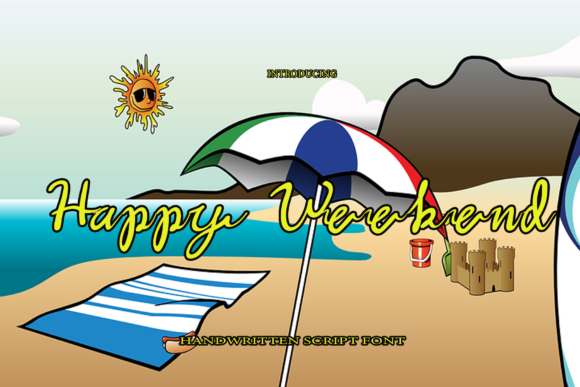
Introducing Happy Weekend Font: The Perfect Addition to Your Design Arsenal
Are you tired of using the same old fonts in your designs? Look no further! Happy Weekend Font is a game-changer for designers and crafters alike. This relaxed, whimsical, and chic script font is sure to add a touch of personality to any project. In this article, we’ll dive into the features and benefits of Happy Weekend Font, and explore its endless possibilities.
What is Happy Weekend Font?
Happy Weekend Font is a beautiful script font that features characters that dance along the baseline. Its unique and playful design makes it perfect for a wide range of applications, from logos and wedding invitations to headings, t-shirts, and more. The font’s relaxed and whimsical feel makes it an excellent choice for designers looking to add a touch of elegance and sophistication to their work.
Key Features of Happy Weekend Font
- Relaxed and Whimsical Design: Happy Weekend Font features a unique and playful design that is sure to capture the attention of your audience.
- Chic Script Style: The font’s script style is perfect for adding a touch of elegance and sophistication to your designs.
- Characters that Dance Along the Baseline: The font’s characters are designed to dance along the baseline, creating a sense of movement and energy.
- Versatile: Happy Weekend Font can be used for a wide range of applications, including logos, wedding invitations, headings, t-shirts, letterhead, signage, labels, news, posters, badges, and more.
Happy Weekend Font is a must-have for designers and crafters looking to add a touch of personality to their work. Whether you’re creating a logo, wedding invitation, or social media graphic, this font is sure to make your design stand out. Its versatility and unique design make it an excellent choice for a wide range of projects, from digital designs to print materials.
Endless Possibilities
The possibilities are endless with Happy Weekend Font. Here are just a few ideas to get you started:
- Logos: Use Happy Weekend Font to create a unique and memorable logo for your business or brand.
- Wedding Invitations: Add a touch of elegance and sophistication to your wedding invitations with this beautiful script font.
- Headings: Use Happy Weekend Font to create eye-catching headings for your blog posts, articles, or social media graphics.
- T-Shirts: Create custom t-shirts with Happy Weekend Font for a unique and stylish look.
- Signage: Use this font to create eye-catching signage for your business or event.
Why Choose Happy Weekend Font?
So why choose Happy Weekend Font over other fonts? Here are just a few reasons:
- Unique Design: Happy Weekend Font features a unique and playful design that is sure to capture the attention of your audience.
- Versatility: This font can be used for a wide range of applications, making it a great addition to your design arsenal.
- Elegance and Sophistication: Happy Weekend Font adds a touch of elegance and sophistication to any design.
In conclusion, Happy Weekend Font is a must-have for designers and crafters looking to add a touch of personality to their work. Its unique and playful design, versatility, and elegance make it an excellent choice for a wide range of projects. Whether you’re creating a logo, wedding invitation, or social media graphic, Happy Weekend Font is sure to make your design stand out. So why wait? Download Happy Weekend Font today and take your designs to the next level!